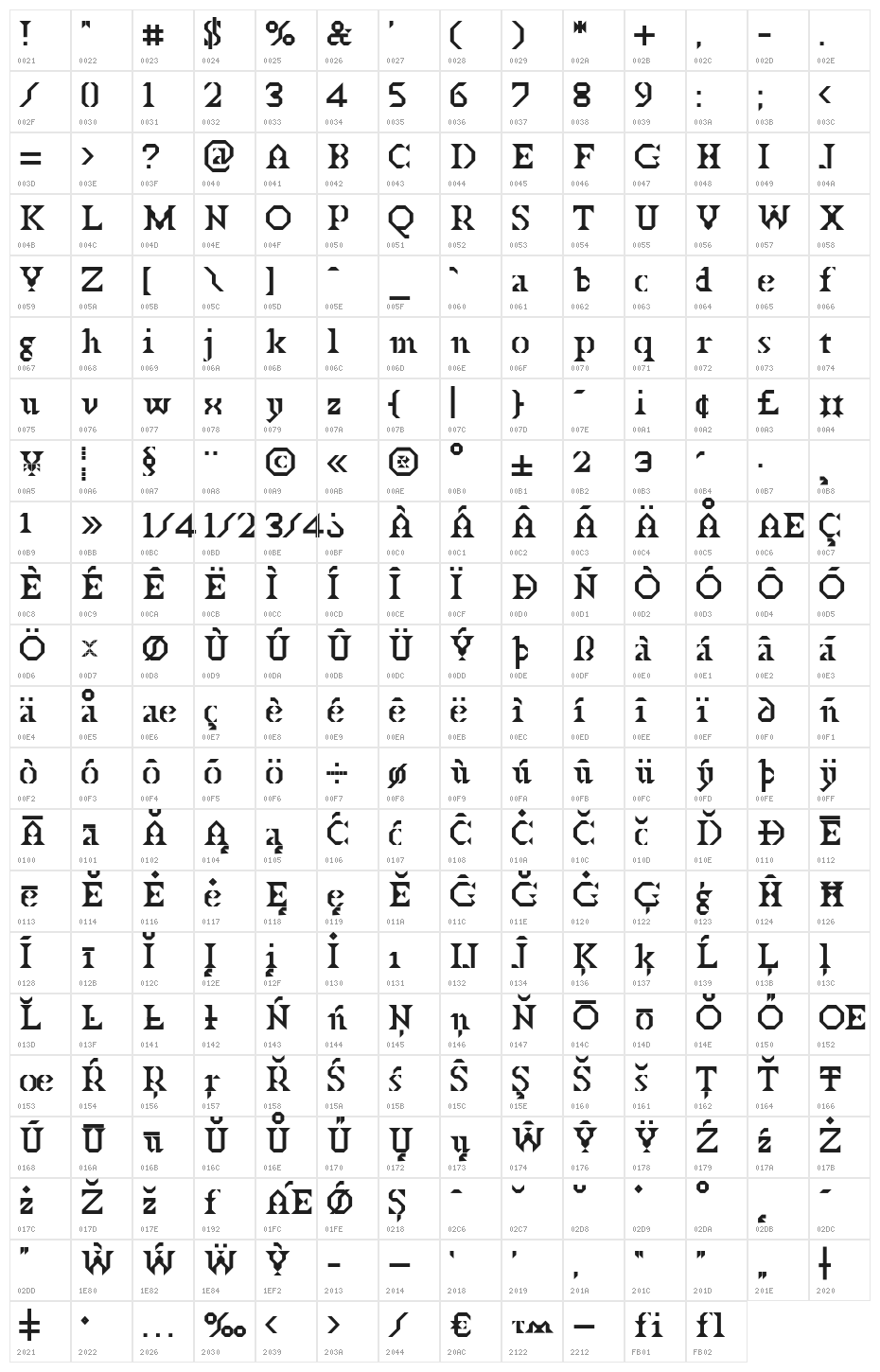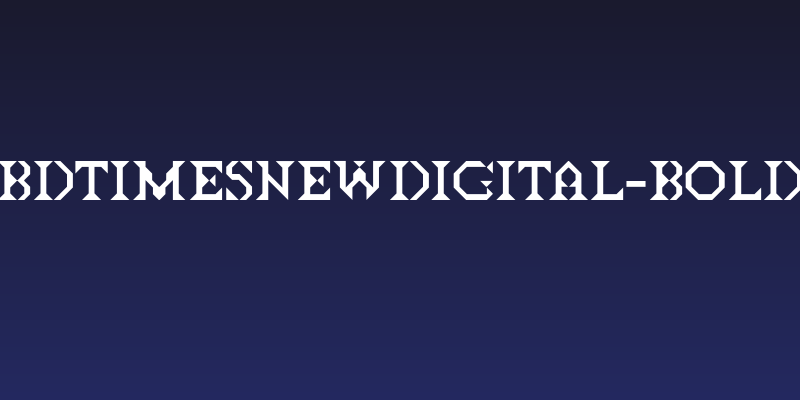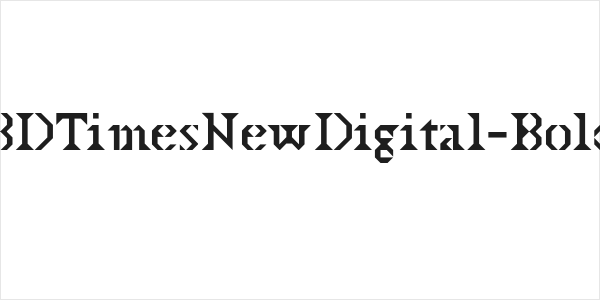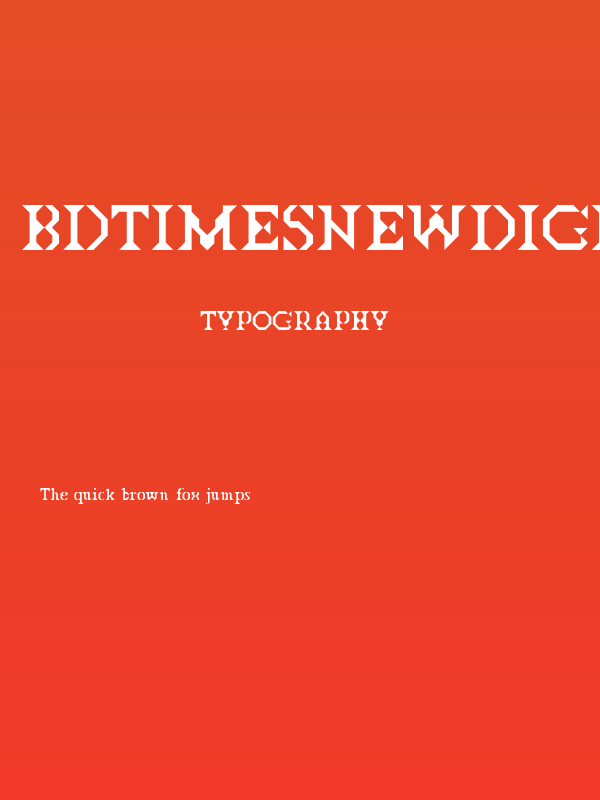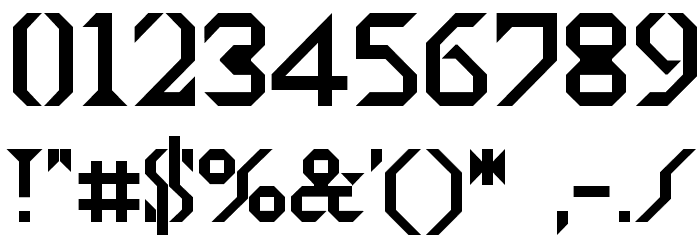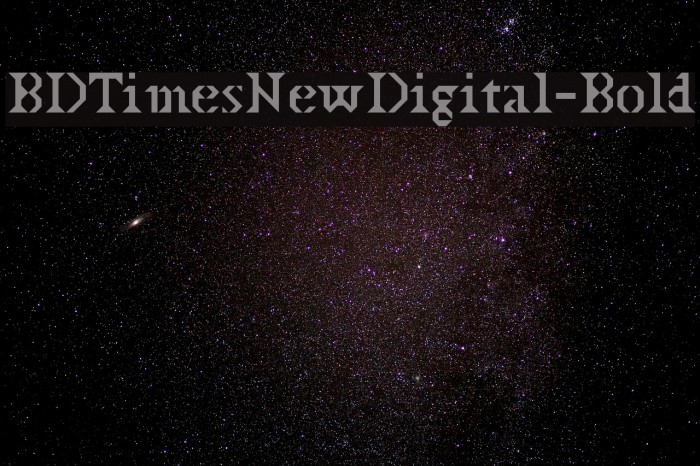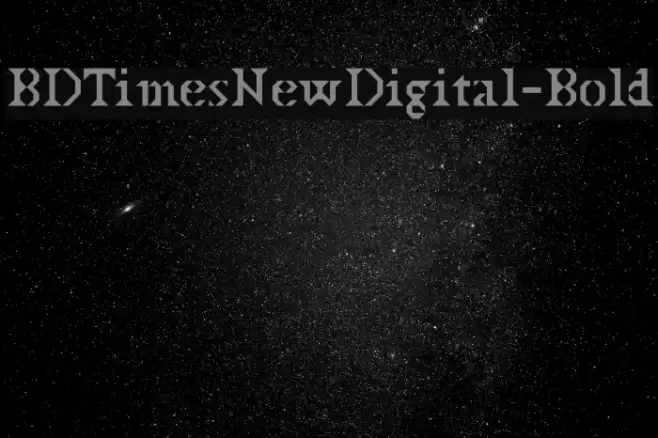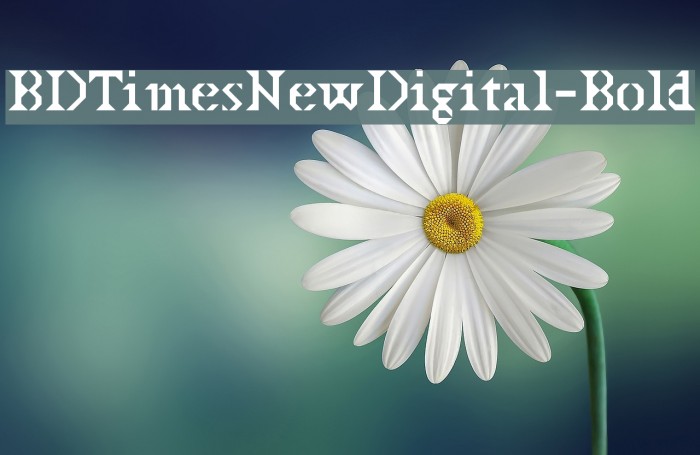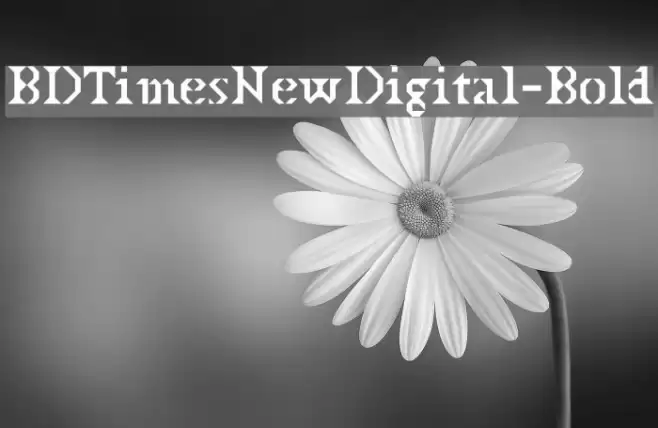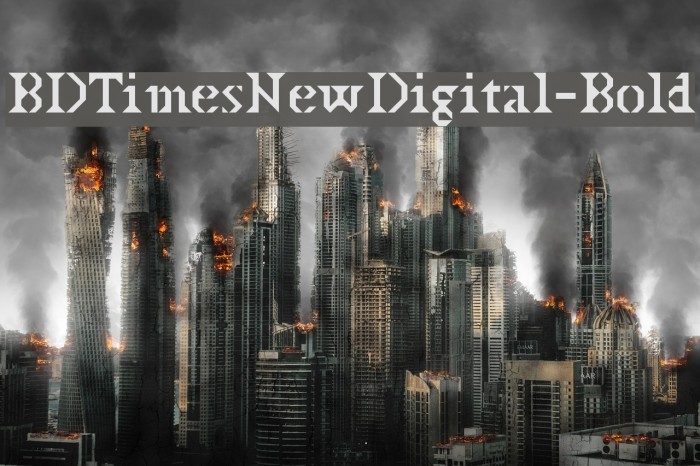
BDTimesNewDigital-Bold Font
BDTimesNewDigital-Bold Description
This font features a bold, geometric design with sharp angles and a digital aesthetic. The characters are constructed with a series of straight lines and angular cuts, giving them a futuristic and edgy appearance. The uppercase and lowercase letters maintain a consistent style, with the uppercase being slightly more pronounced. Numbers and special characters are designed to match the overall angular theme, ensuring a cohesive look across all elements. The font's unique style makes it stand out, ideal for projects that require a modern and bold statement.
| Proposed Projects | Ideal for digital art, video game titles, tech branding, and futuristic-themed posters. |